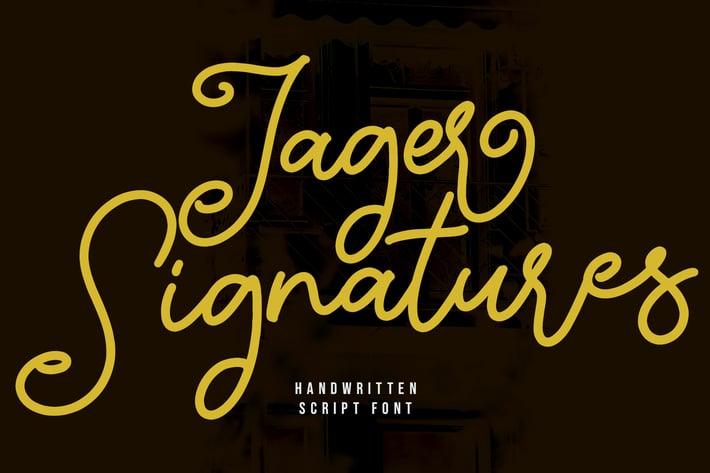
Jager Signature Handwritten Script Font
Jager Signature is a Handwritten Display font. With contrast regular stroke, fun character with a bit of ligatures. To give you an extra creative work. Jager font support multilingual more than 100+ language. This font is good for logo design, Social media, Movie Titles, Books Titles, a short text even a long text letter and good for your secondary text font with sans or serif. Make a stunning work with Jager font.